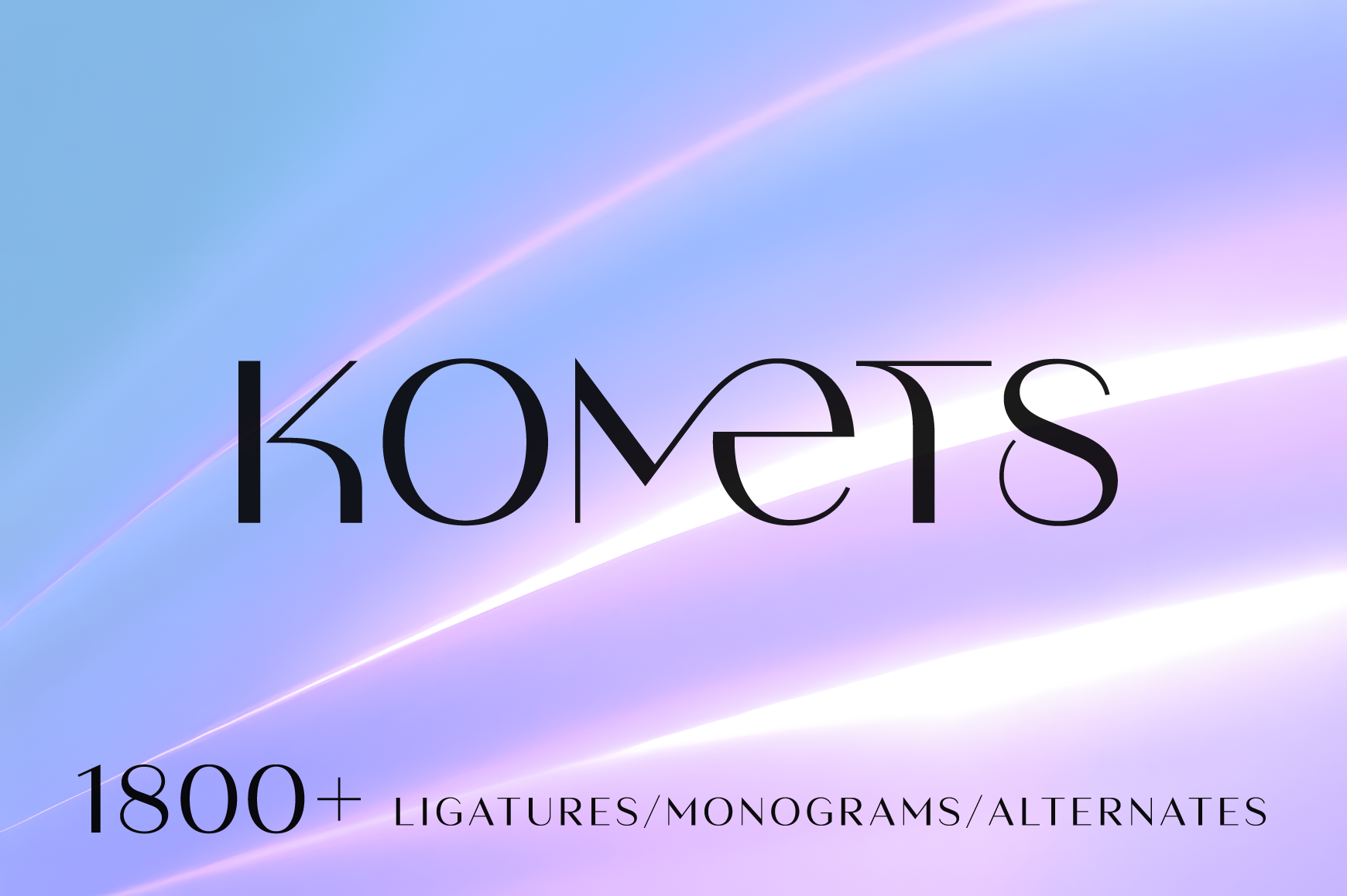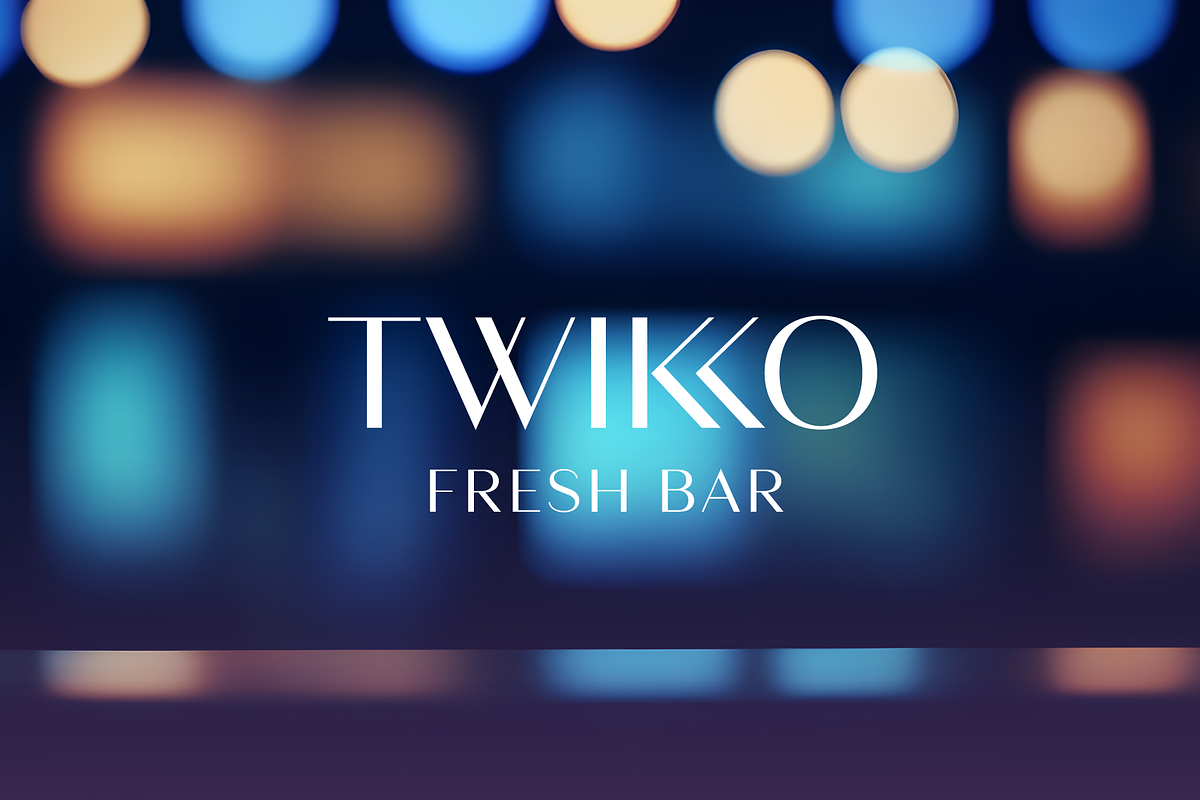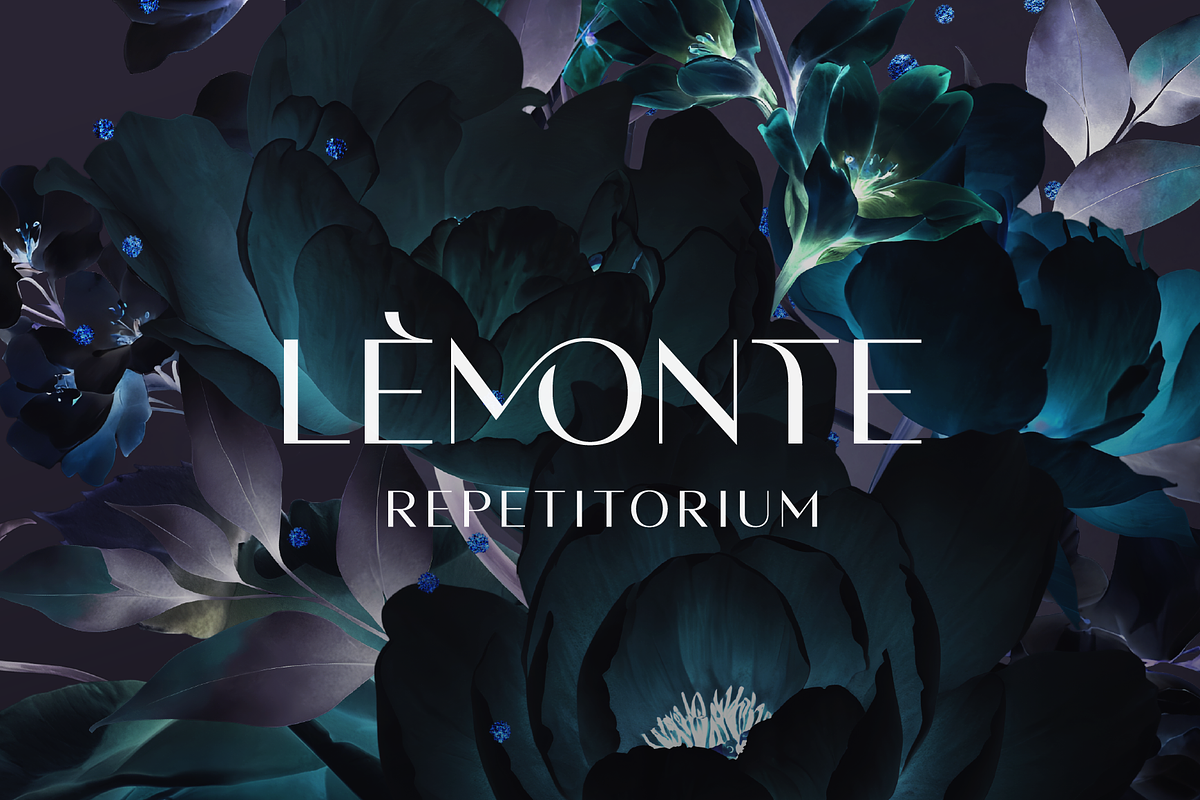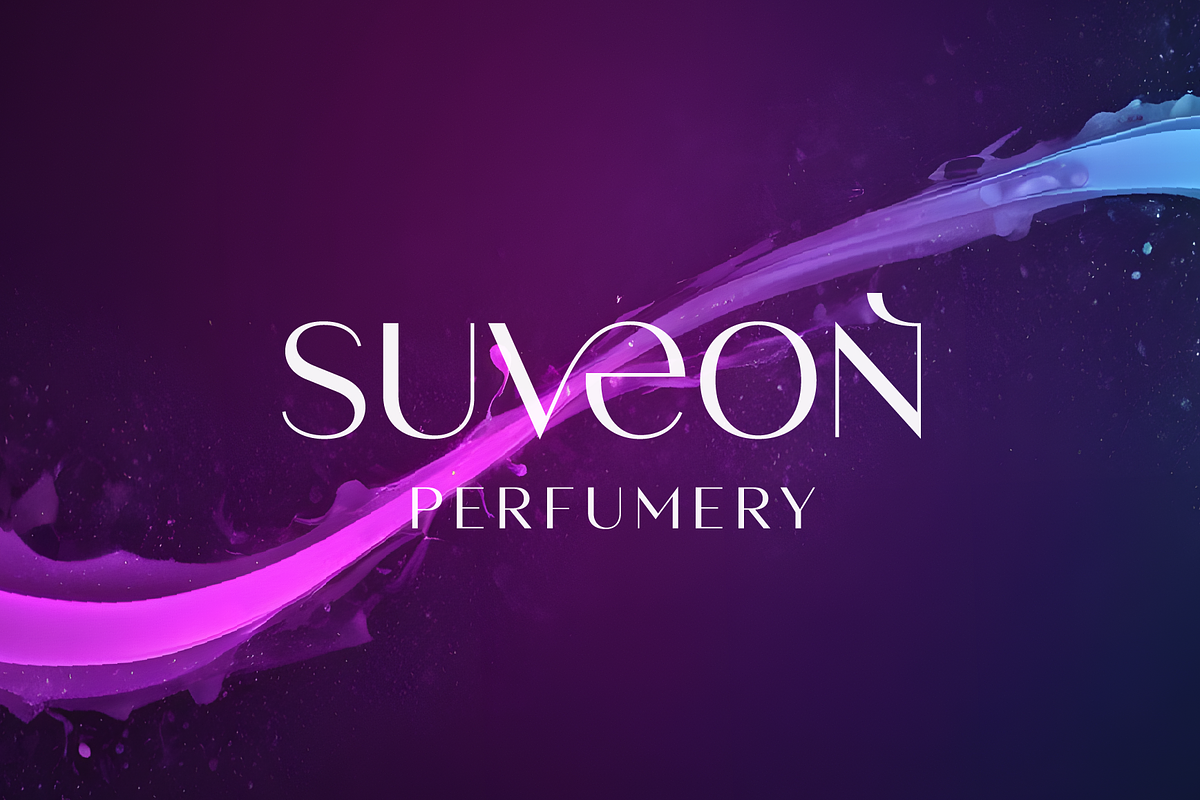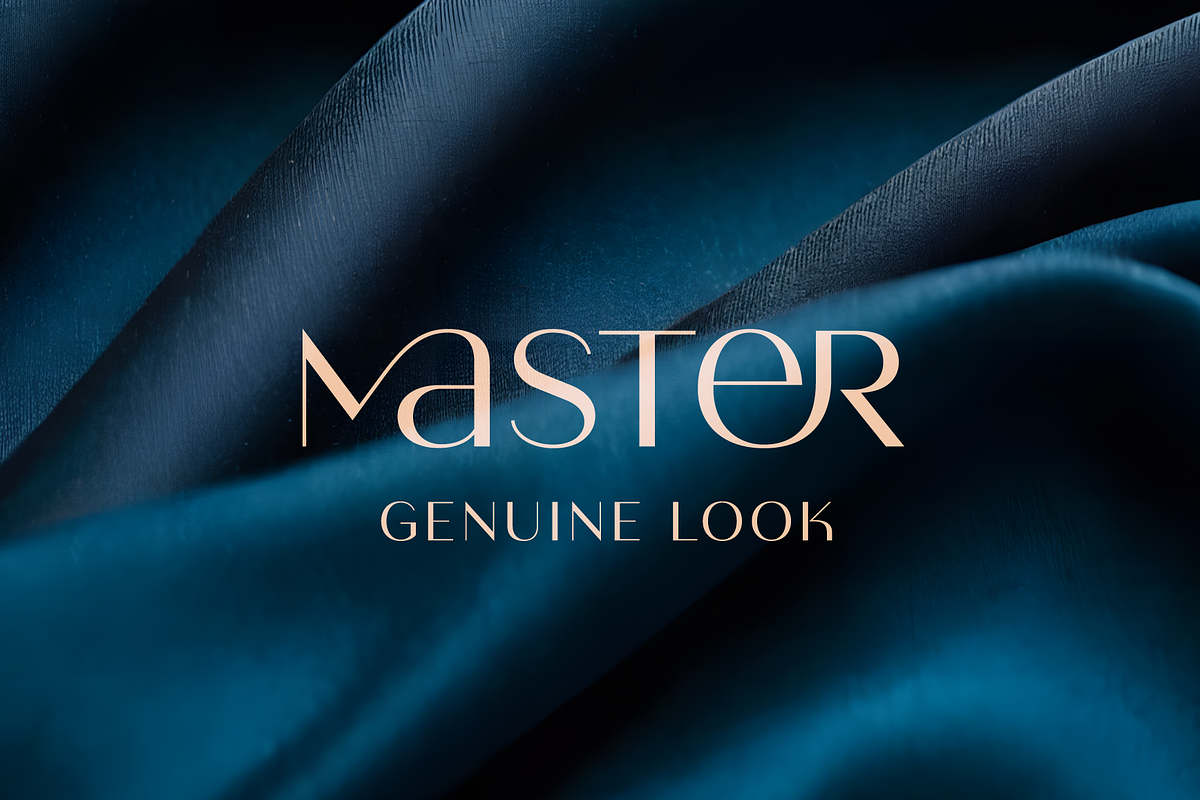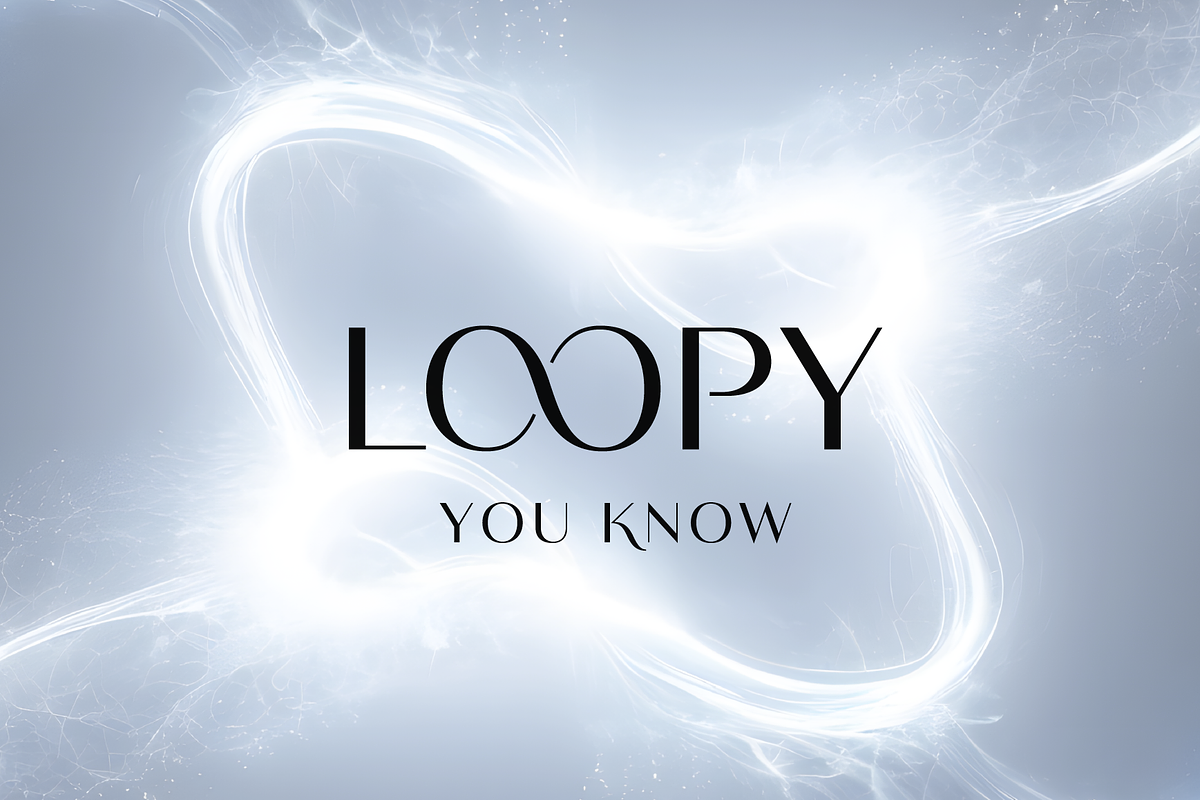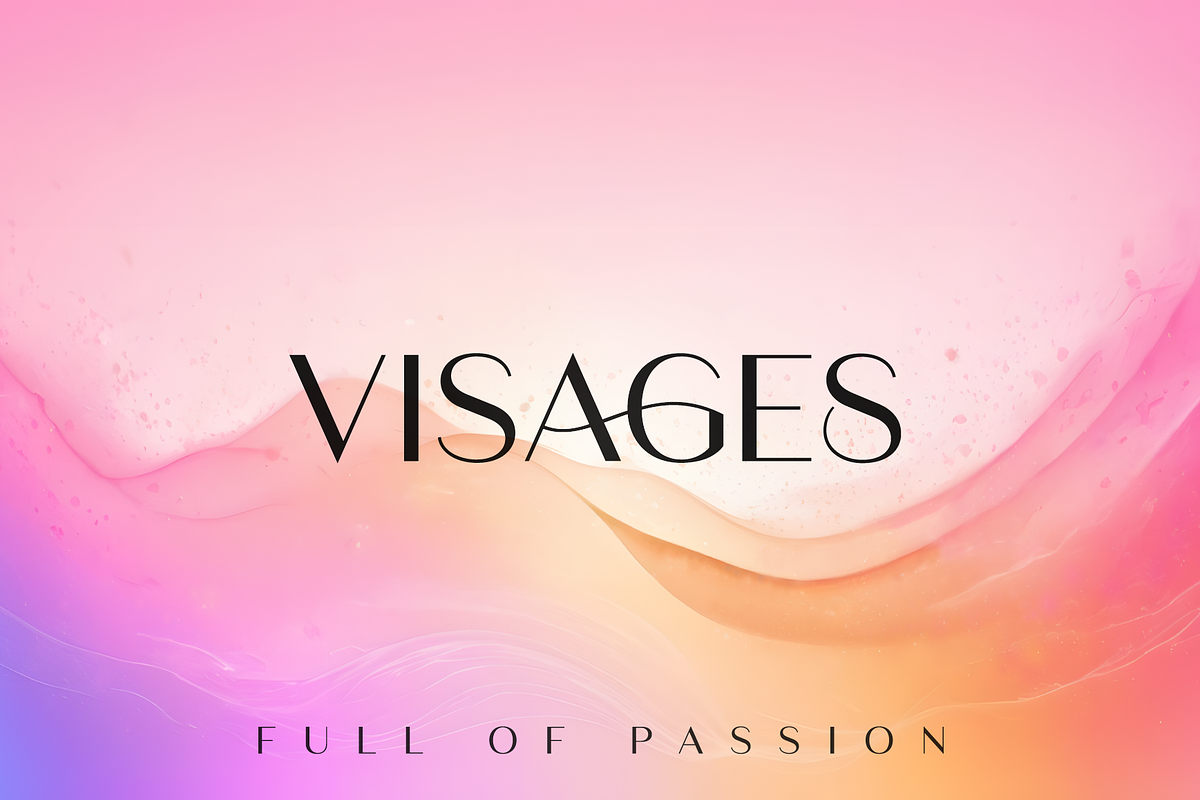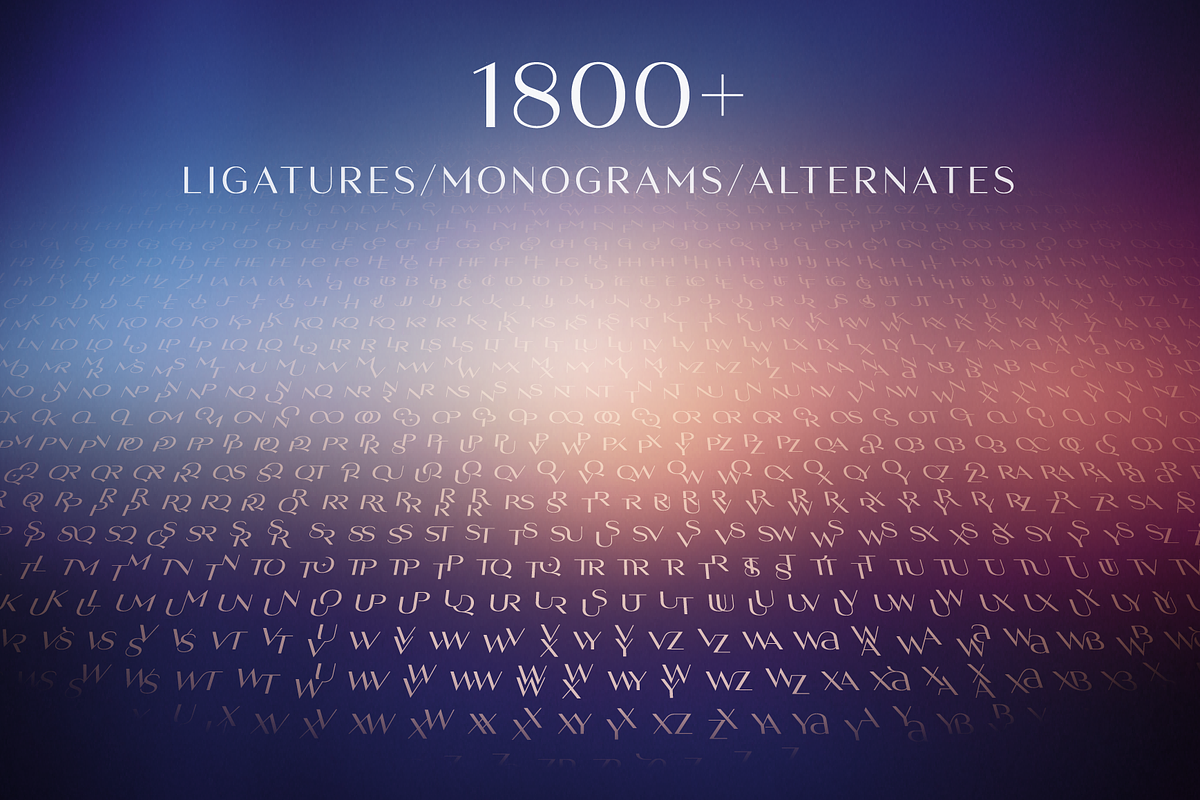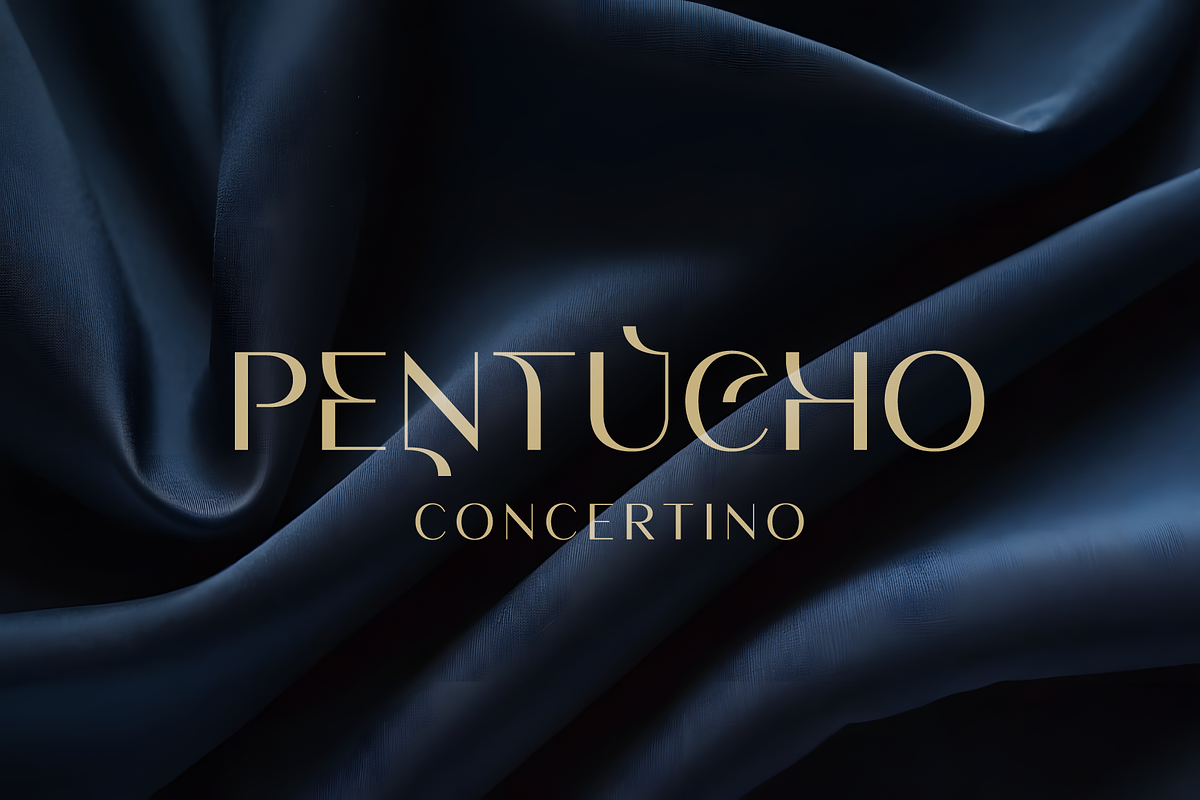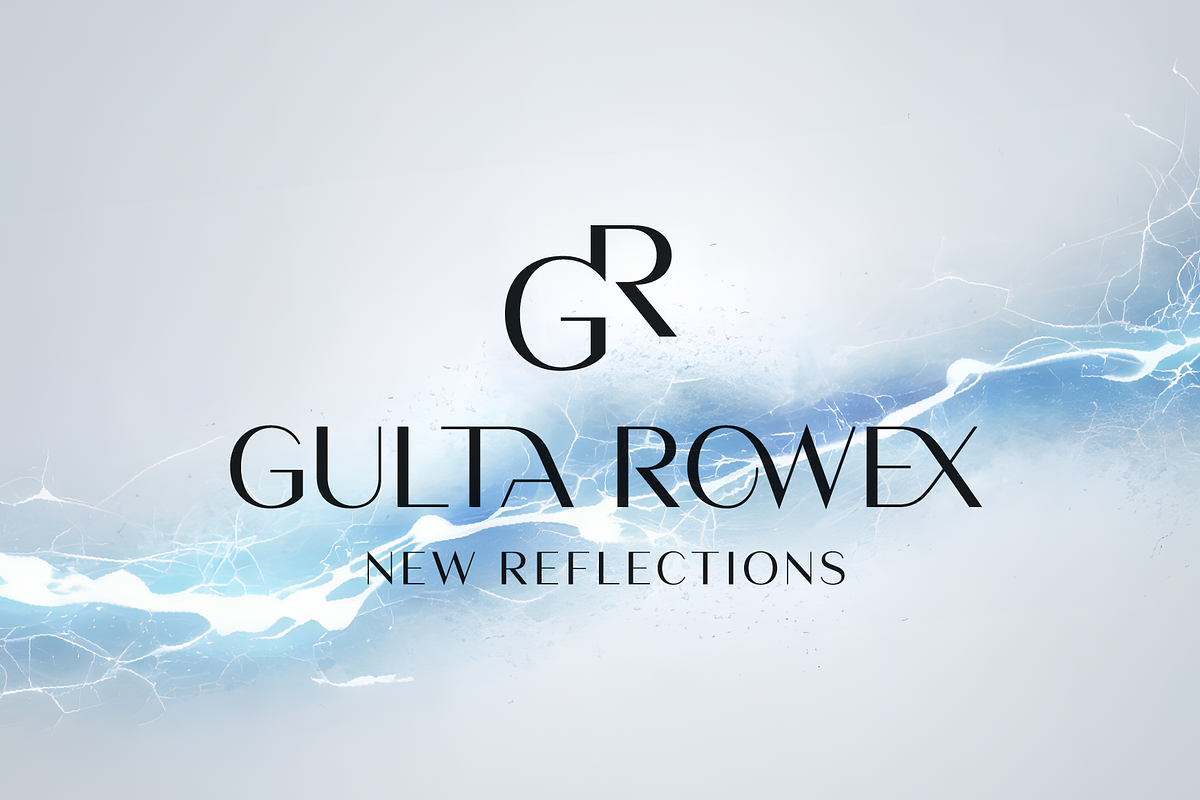
Komets - Ligatures Font
Komets is a high contrast all caps sans font. In addition to the number of alternates, the font contains ligatures and/or monograms for all two-letter combinations.
- Latin uppercase letters and up to 4 alternates per letter
- Basic multilingual uppercase letters
- Up to 8 ligatures/monograms per each two-letter combination
- Extra characters